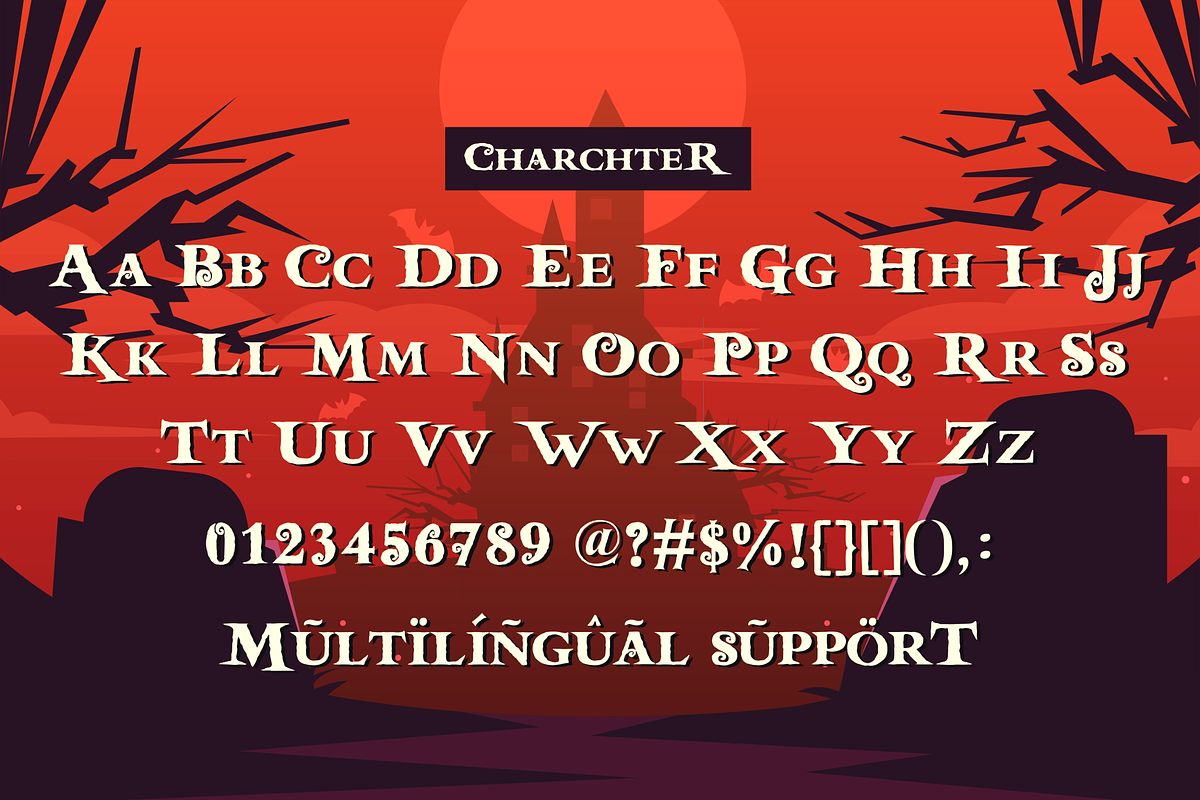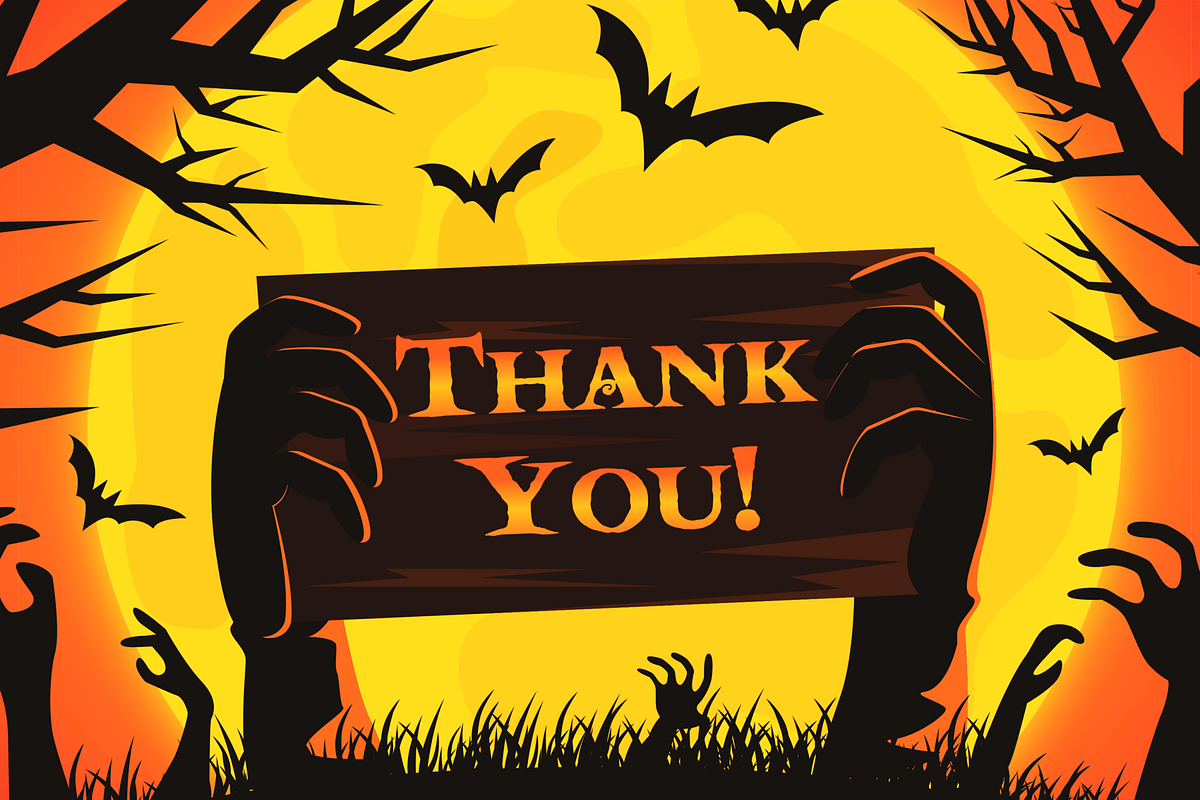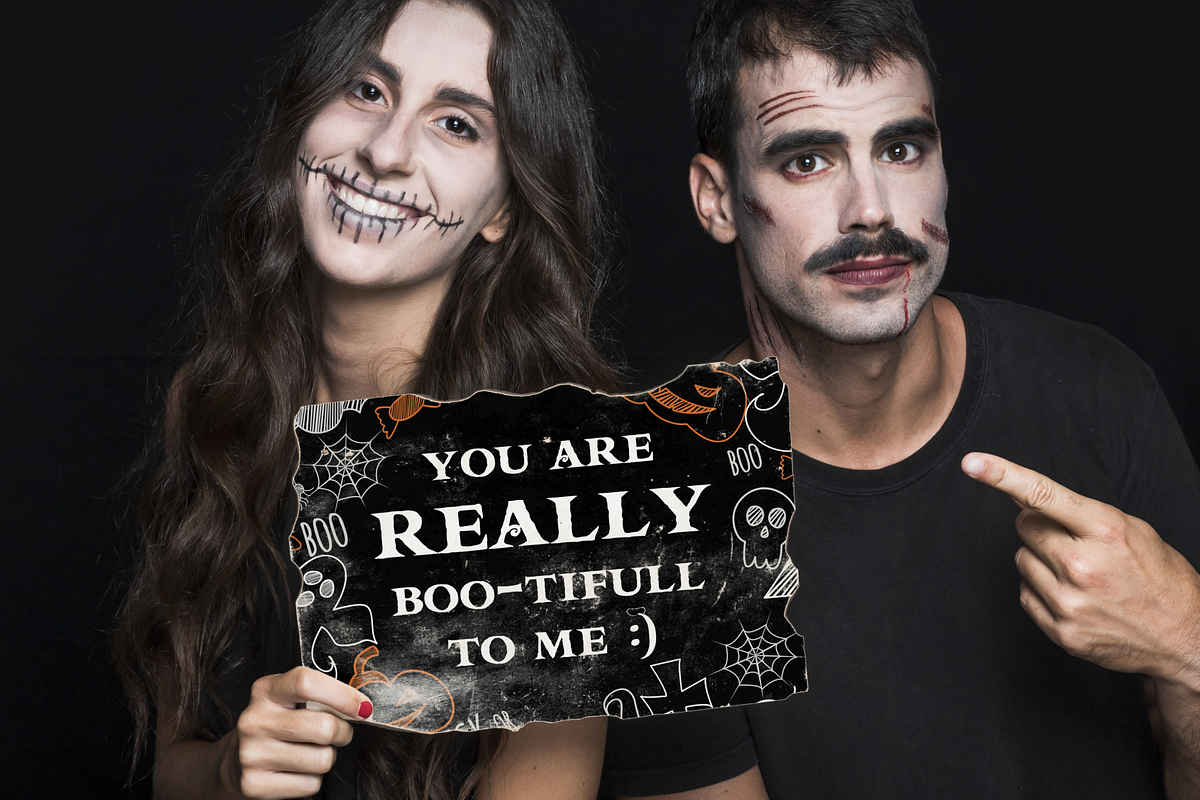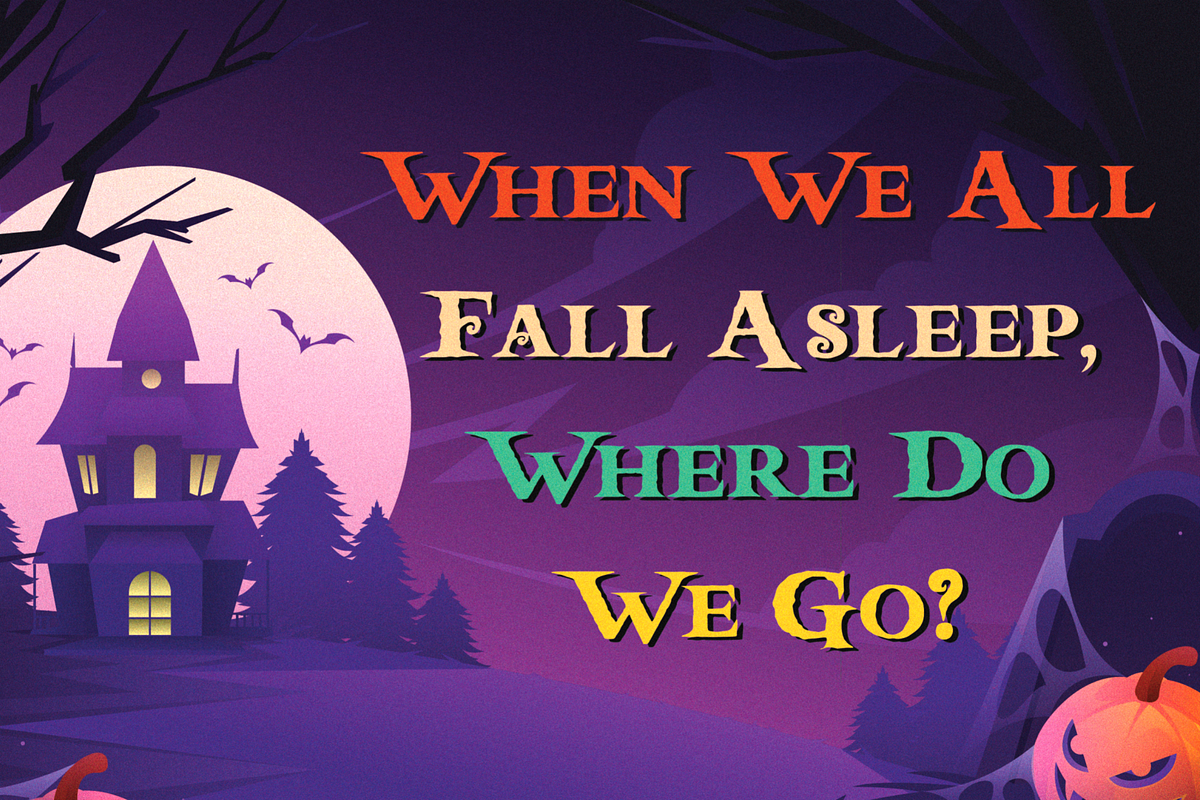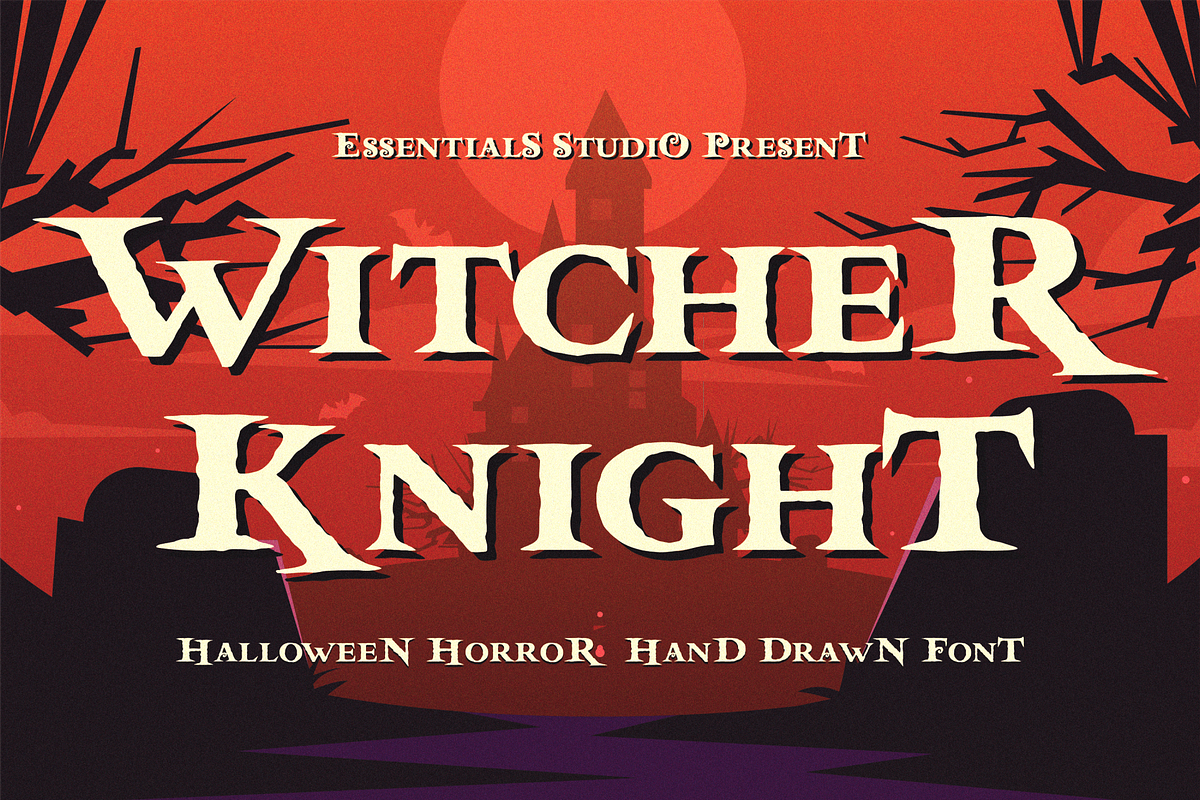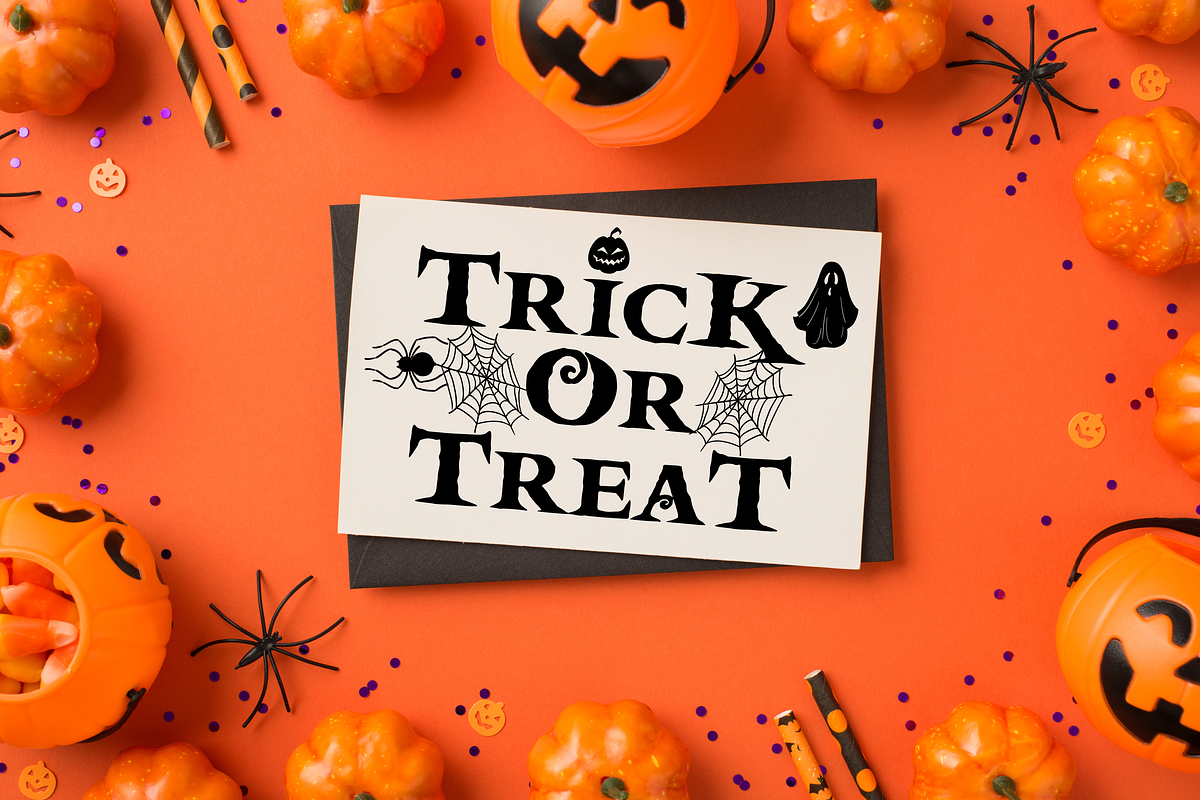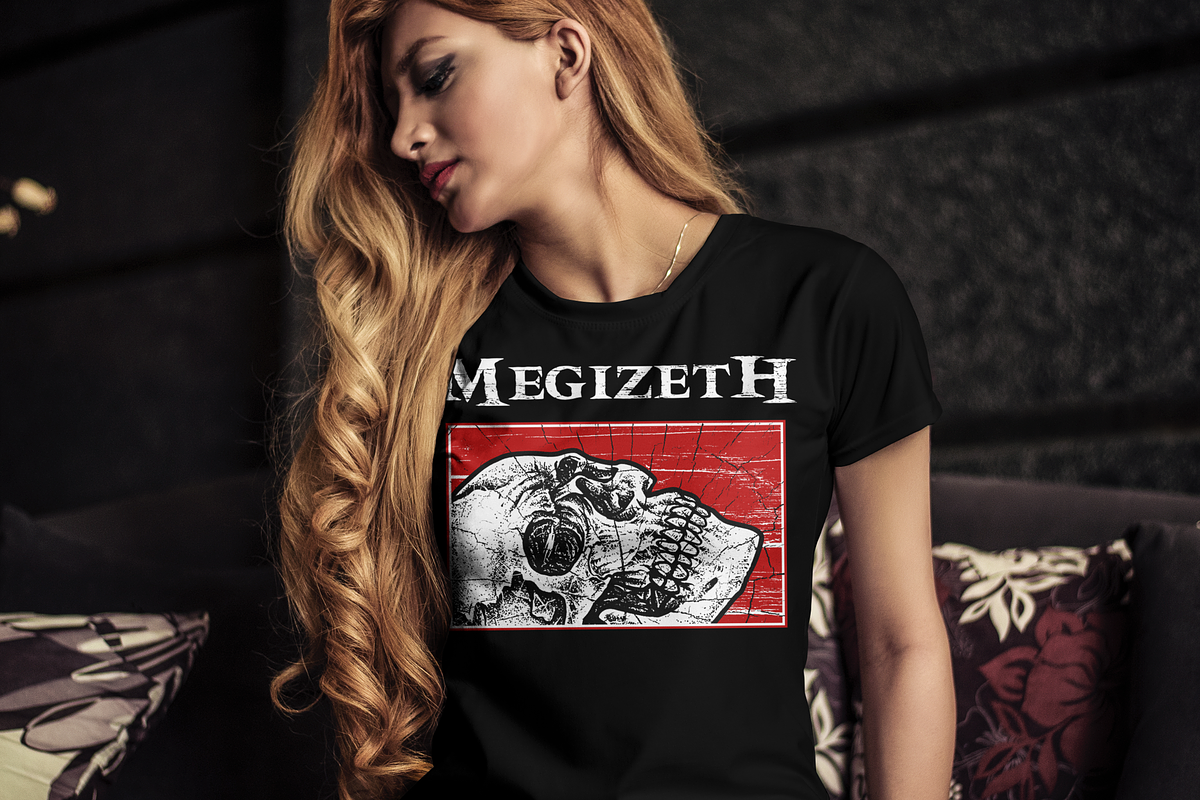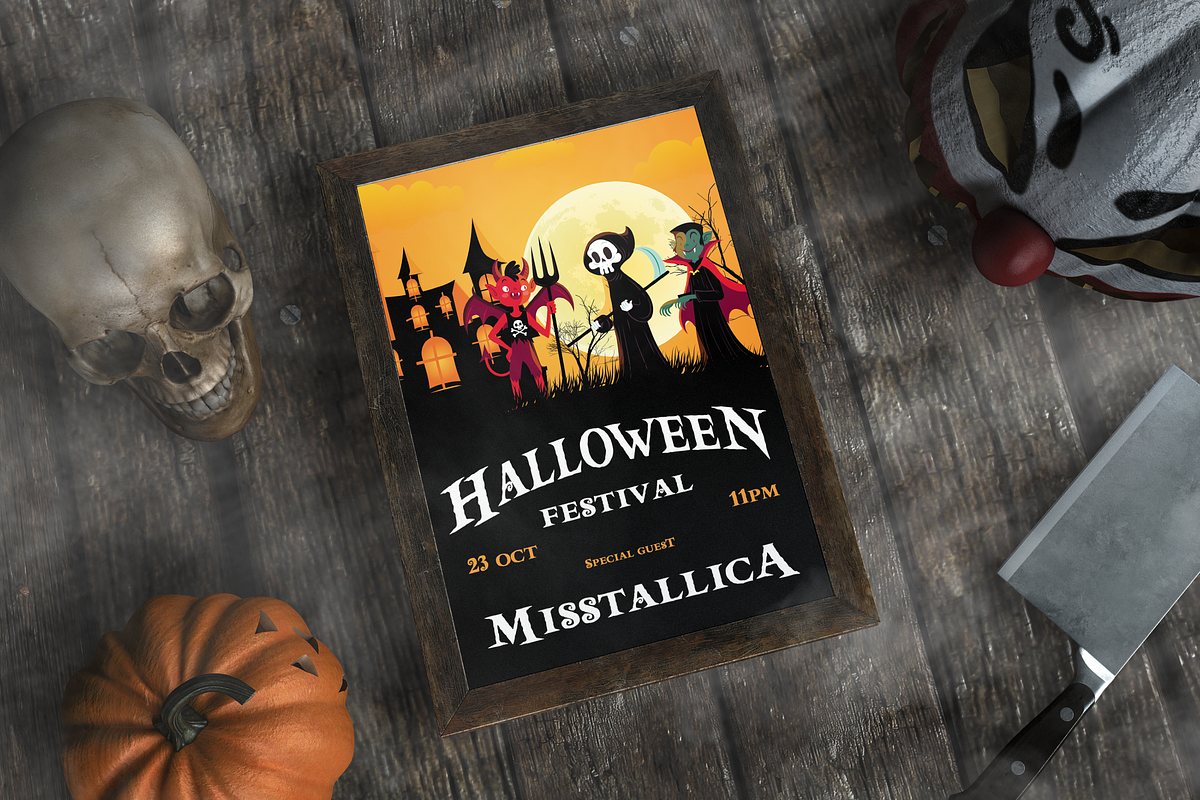
Witcher Knight
Proudly Present, WITCHER KNIGHT Is a A Halloween Horror Hand Drawn Font
WITCHER KNIGHT is perfect for product packaging, branding project, megazine, social media, wedding, or just used to express words above the background.
This Font Also Multilingual Support